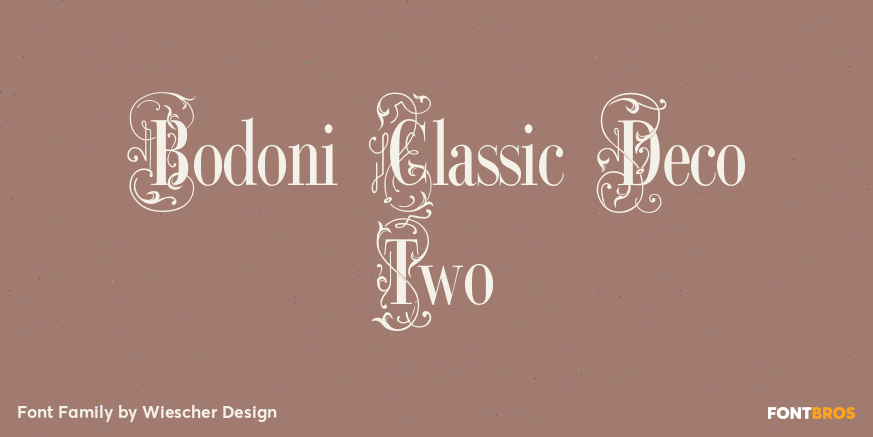
Bodoni Classic Deco Two
About Bodoni Classic Deco Two
Bodoni Classic Deco Two, like the original Bodoni Classic Deco, breaks all rules. Giambattista Bodoni himself would probably hate me for doing it; he was a real purist. The whole idea of the Bodoni typeface is no embellishments and here I go and decorate…